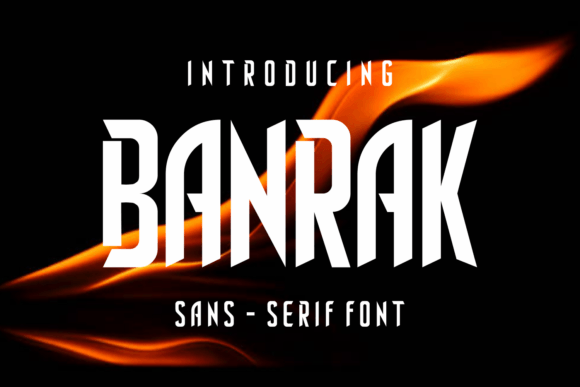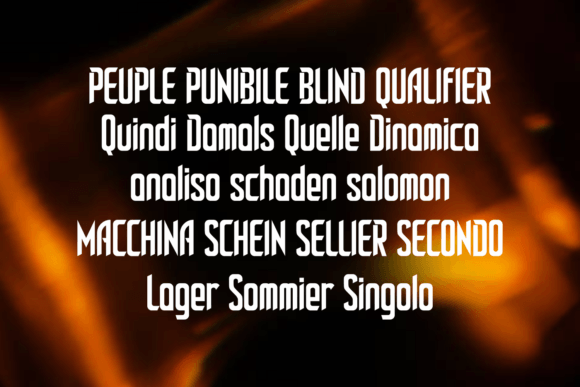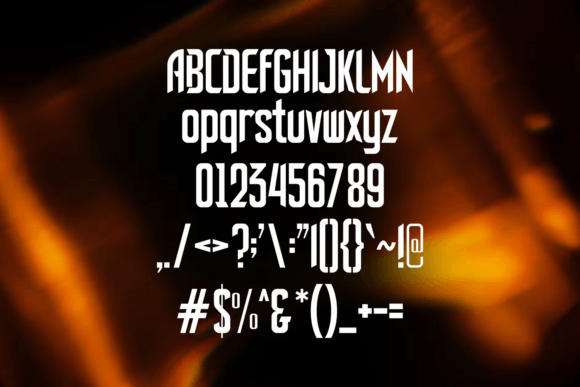
Discover the Futuristic World of Banrak Font
In the realm of typography, fonts play a crucial role in shaping the visual identity of a brand, product, or artwork. With the ever-evolving design landscape, the demand for unique and versatile fonts has increased. This is where Banrak Font comes into play – a futuristic sans serif font that has been making waves in the design community. In this article, we’ll dive into the world of Banrak Font, exploring its features, applications, and benefits for designers and crafters.
What is Banrak Font?
Banrak Font is a distinctive sans serif font designed to make a statement. Its futuristic aesthetic makes it perfect for projects that require a modern and edgy touch. The font’s clean lines, geometric shapes, and carefully crafted letterforms create a visually appealing and cohesive look. Whether you’re working on a branding project, print material, or digital artwork, Banrak Font is an excellent choice.
Key Features of Banrak Font
- Unique and Futuristic Design: Banrak Font boasts a one-of-a-kind design that sets it apart from other sans serif fonts. Its futuristic look makes it ideal for projects that require a bold and modern approach.
- Versatile and Adaptable: This font is designed to work seamlessly across various mediums, including print and digital platforms. Its adaptability makes it perfect for a wide range of applications.
- Highly Legible: Despite its futuristic design, Banrak Font remains highly legible, ensuring that your message is conveyed clearly and effectively.
Applications of Banrak Font
Banrak Font’s versatility makes it suitable for a wide range of applications, including:
- Branding and Logos: Create a lasting impression with Banrak Font’s unique and memorable design.
- Name Cards and Posters: Make a statement with bold and eye-catching typography.
- Magazines and Covers: Add a touch of modernity to your publication with Banrak Font’s sleek design.
- Banners and Headers: Draw attention with Banrak Font’s bold and futuristic aesthetic.
- T-Shirts and Apparel: Create stylish and modern designs for your apparel.
- Large-Scale Artwork: Use Banrak Font to create stunning and impactful artwork.